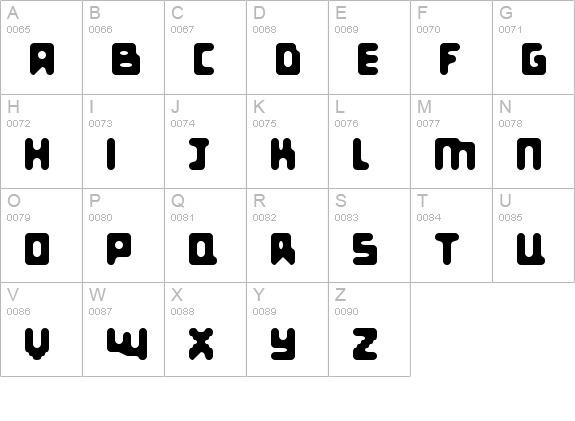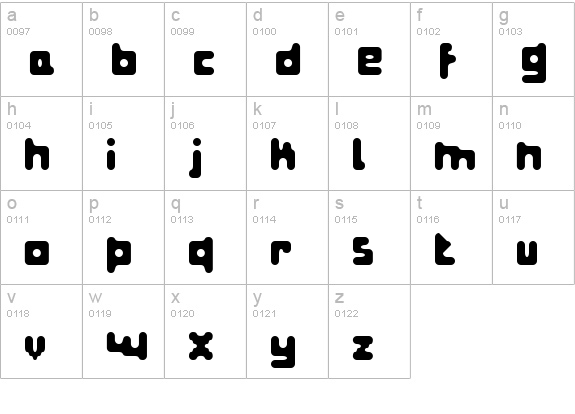
Fat Pixels Font Details
Introducing Fat Pixels font, a bold and eye-catching typeface that is sure to make a statement in your designs. Developed with a fun and quirky style, this font features chunky pixels that give off a playful and modern vibe. Perfect for posters, branding, headlines, and more, Fat Pixels is a versatile font that will add a unique touch to any project. What's even better is that Fat Pixels font is completely free to download at FontsMarket.com. Yes, you read that right – this fantastic font can be yours at no cost, allowing you to unleash your creativity without breaking the bank. So why wait? Head over to FontsMarket.com now and grab your free download of the Fat Pixels font to level up your design game today!